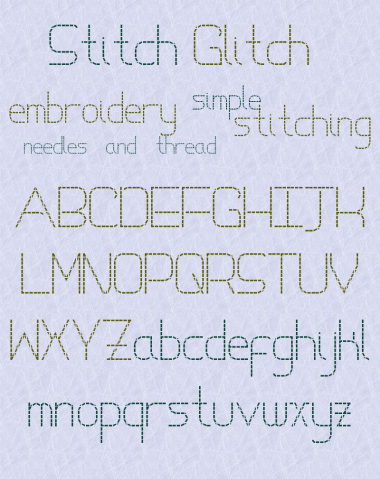
Oh this is lovely. Clean, easy to read and hand stitched :)
Yes please, UC, numbers and some more of the 'basic' punctuation would be good.
May I make some suggestions?
Maybe the "s" would look more 'balanced' with the larger opening on the bottom?
What would be the effect with half bricks used to create the full stop/point (to get a gap between top and bottom edges), or use of the small corners or the 'angled half bricks' to create a diamond shape? Or maybe use the quarter rings to make a circular full stop?
Is there a gap in the top curve of the "e"?
I changed the full stop. Is that what you mean Aeolien?
The "s" looks good :)
Ah, the "e" looks filled,too :)
Yes xX123, the full stop is more suitable for the airy feel of the font.
My ""but"" is this: the "." and "," look a bit large. I think they need to be seen with UC letters, too, to give a better understanding of scale, maybe dropping the "." and "," one square is all that is needed.
As I can't work out your scale/filters, I'll show you some examples of my experiments with FS (and with an embroidery needle thread and fabric)
Very nice. Just a few small points, I think the verticals of the 'i' and 'j' should come up to the x-height - with the dot above. Also, the right side of 'u' is lower than the left and 'y' looks unfinished.
Overall though, 10/10
Looking much better :)
Should I do Cyrillic? :3
Why not? :D